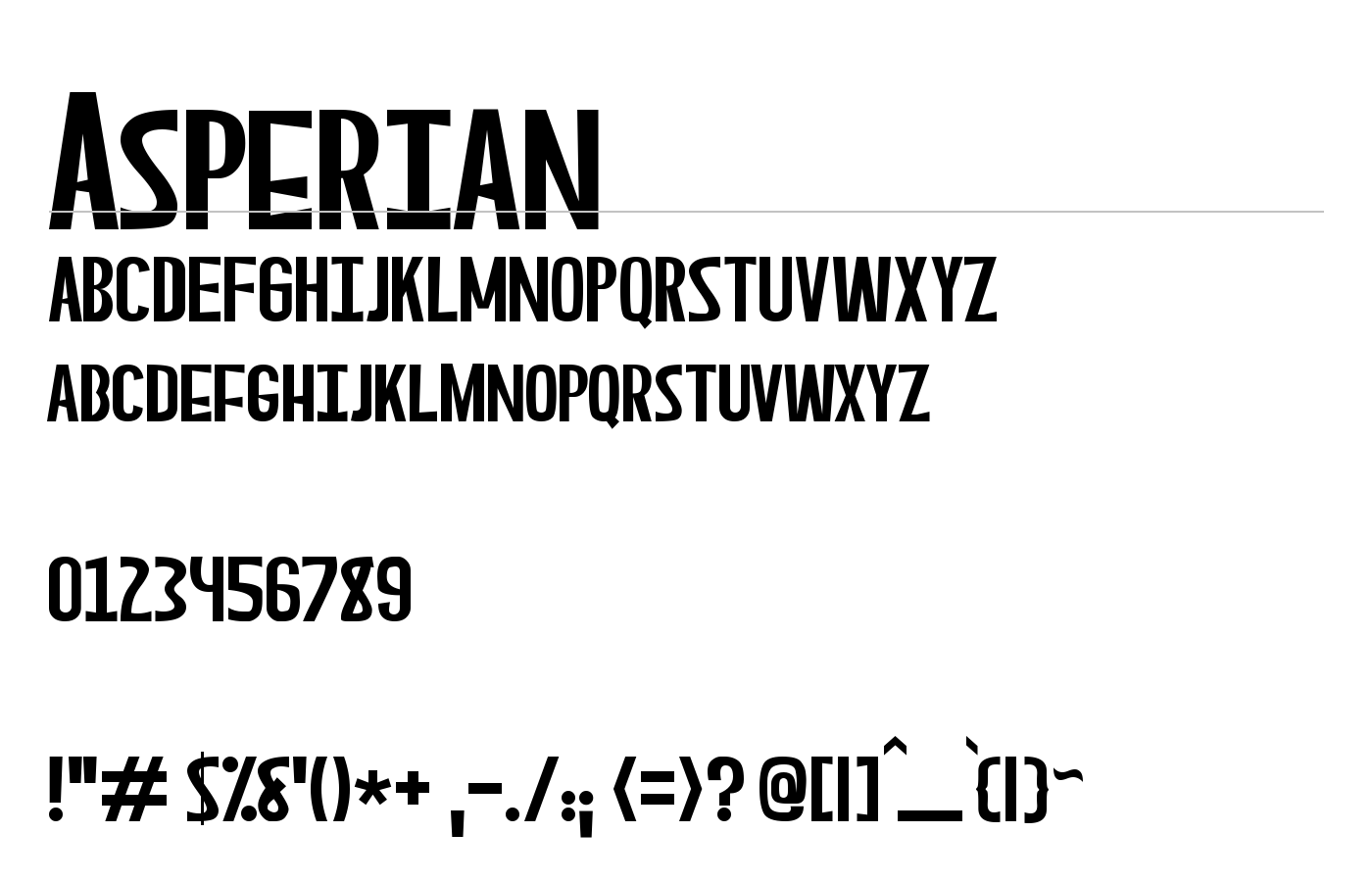
Asperian is a bold, condensed sans serif font with a modern and slightly quirky personality. Its tall, narrow letterforms and subtle stroke variations give it a strong presence, making it ideal for eye-catching headlines, logos, and branding that demand attention with a touch of uniqueness. This font works well where space is limited but a distinctive, confident style is needed.
Asperian Font
About Asperian Font
| Font family | Asperian Font |
| Designer | Max Infeld |